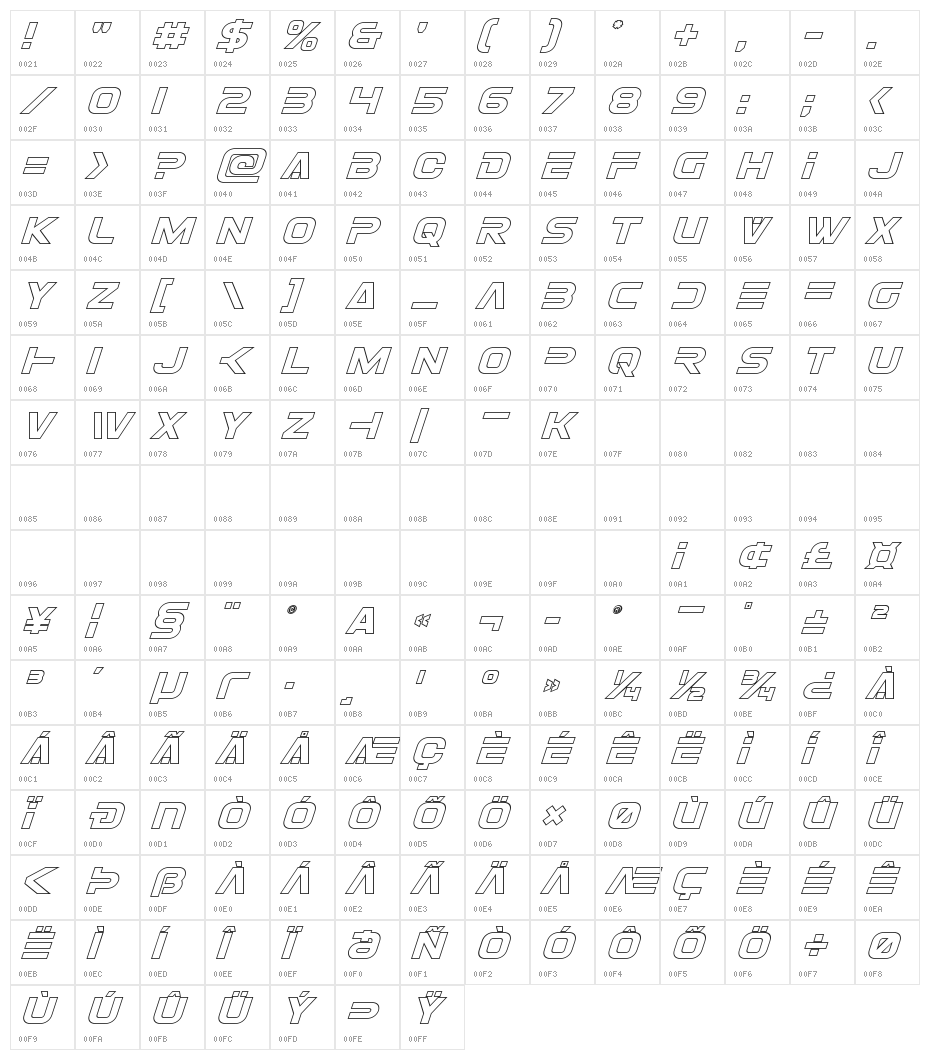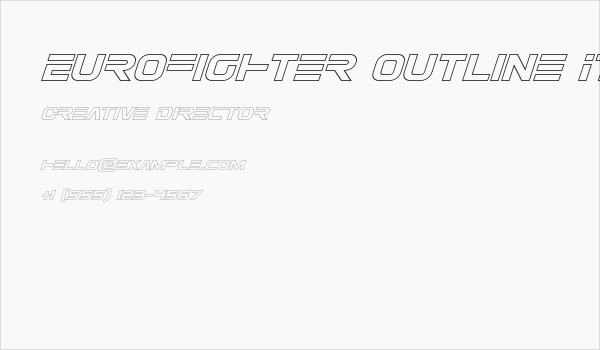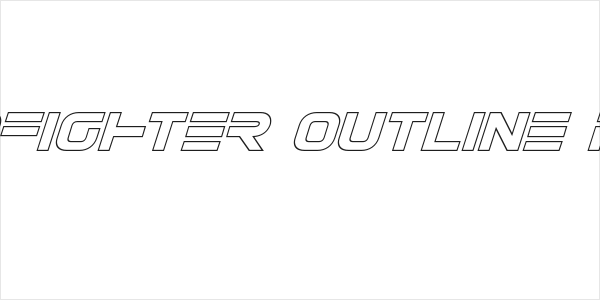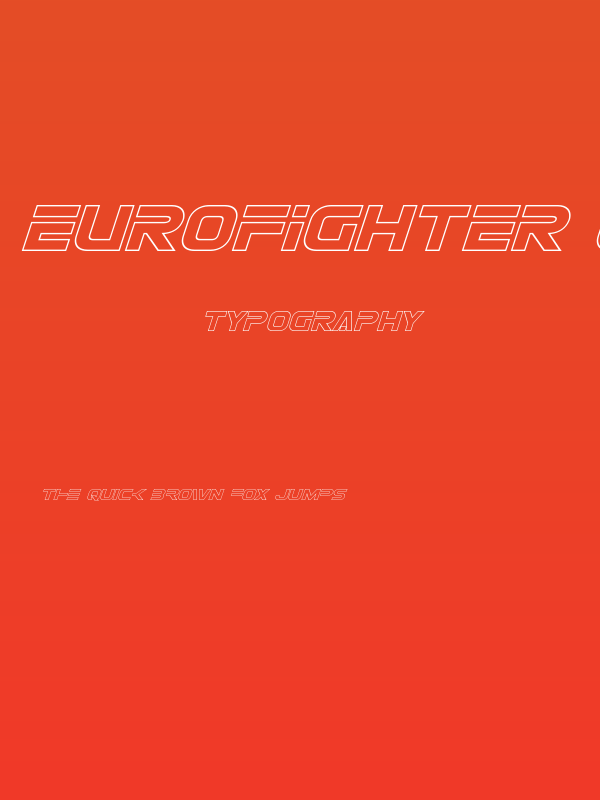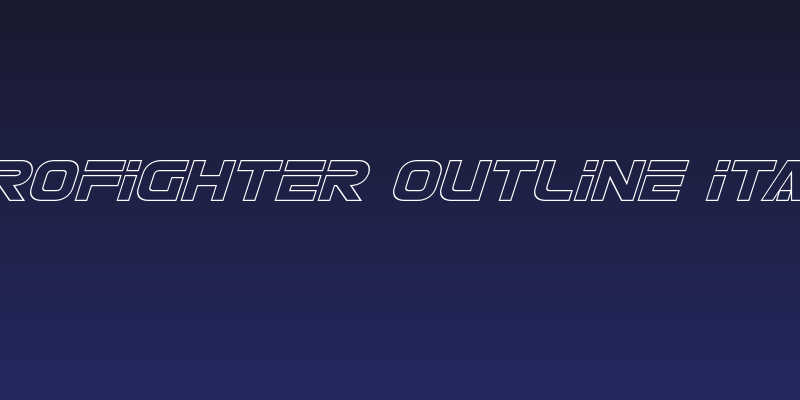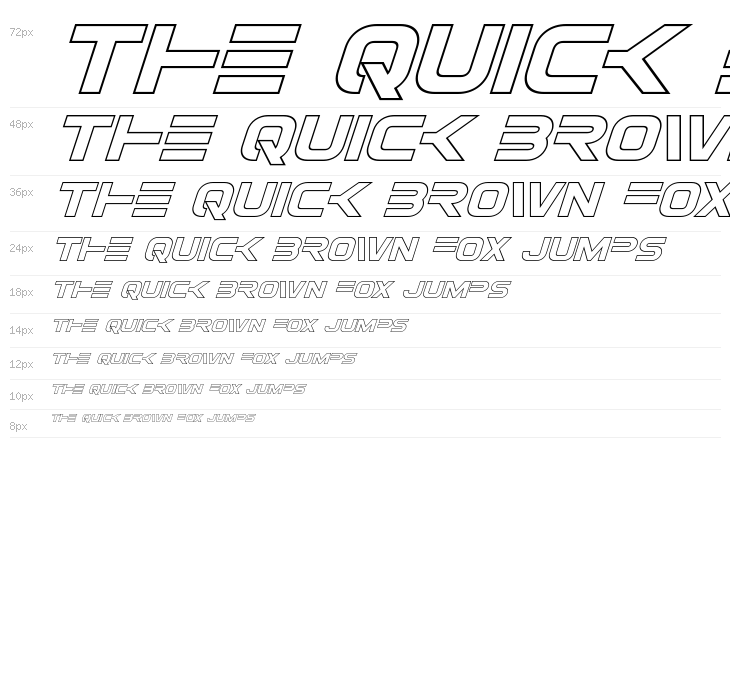
Eurofighter Outline Italic Font
Eurofighter Outline Italic Description
This font features a bold, italicized outline style with a futuristic and dynamic appearance. The characters are designed with sharp angles and clean lines, giving them a sleek and modern look. The uppercase and lowercase letters maintain a consistent style, with a slight slant that adds to the italic effect. The numbers and special characters are crafted to match the overall aesthetic, ensuring a cohesive appearance across all glyphs. The outline design provides a unique visual impact, making it suitable for projects that require a standout typeface.
Proposed ProjectsIdeal for use in technology branding, sports team logos, video game titles, and sci-fi themed designs.